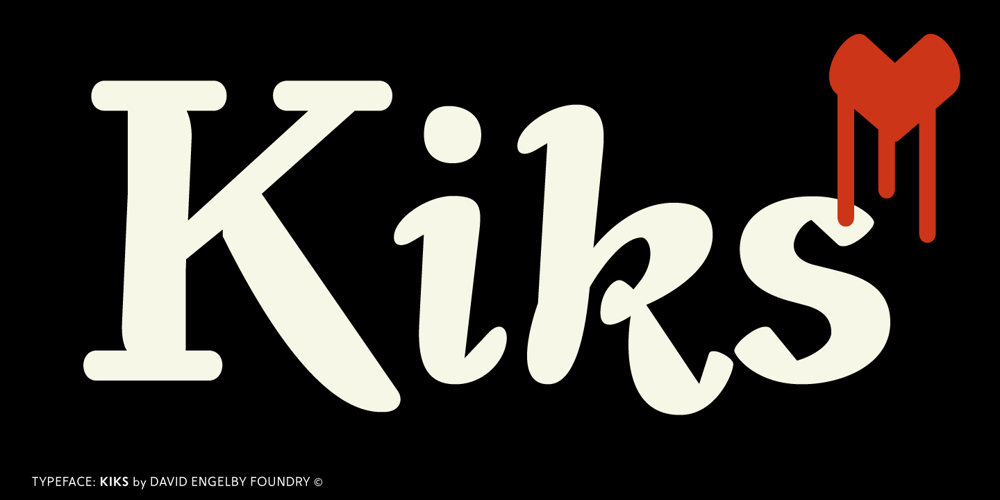
Kiks
Kiks font
Kiks Font Family was designed by David Engelby and published by David Engelby Foundry. Kiks contains 1 styles and family package options. Kiks is the Danish name for biscuit. Just like a biscuit this font throws its crums in every direction with curvy, bold letters. A display font made for headlines and everything else that needs to be visually loud. Enjoy!